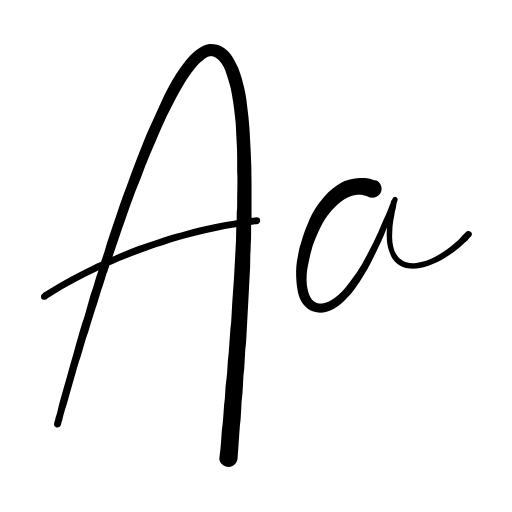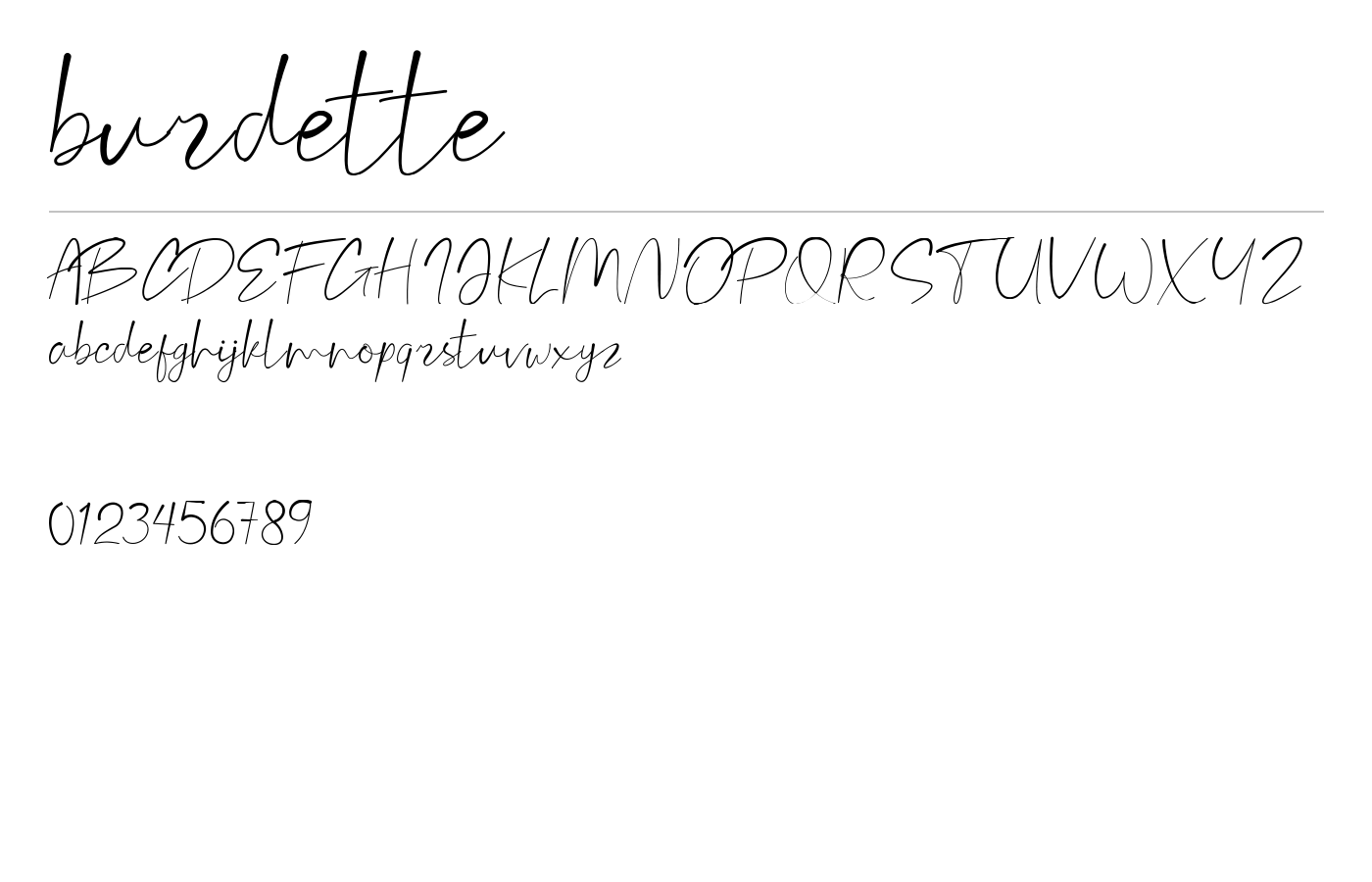
Burdette is a delicate, handwritten script font characterized by its thin, flowing lines and tall, slender letterforms that convey a sense of elegance and personal touch. Its light weight and airy spacing make it ideal for projects that want to communicate sophistication with a casual, approachable vibe, perfect for invitations, branding, and editorial accents. This font shines best when used in headlines or short texts where its unique, stylish charm can be fully appreciated.
burdette Font
About burdette Font
| Designer | Bagas Satriawan |